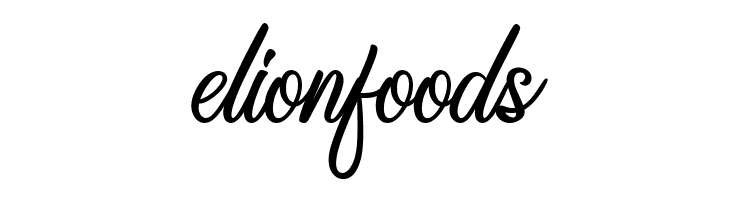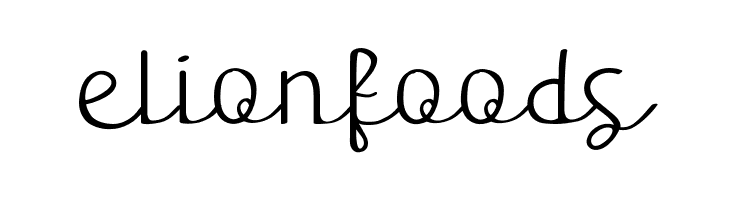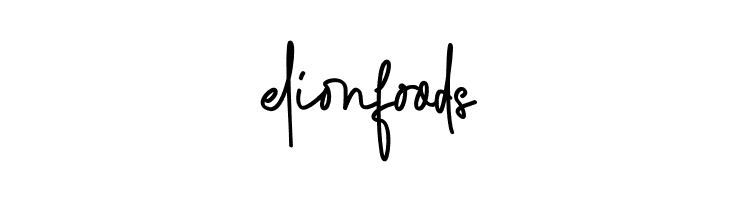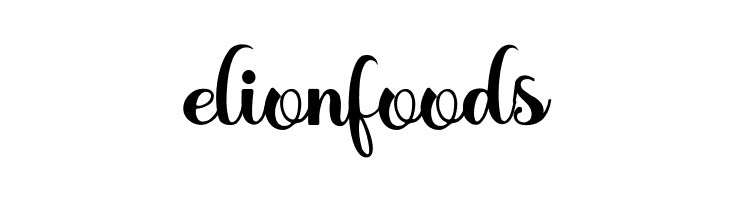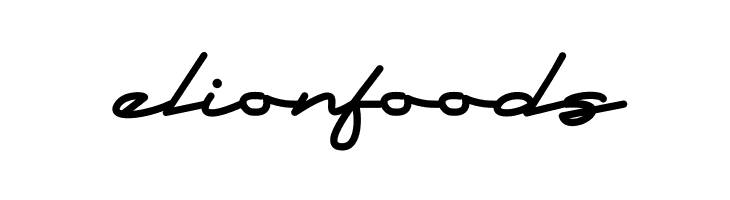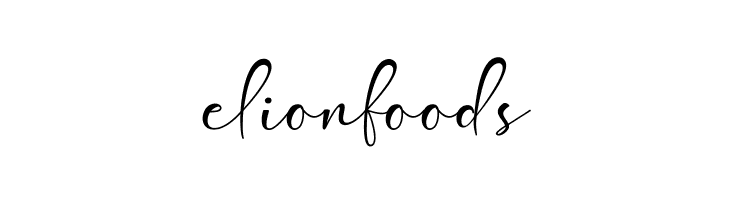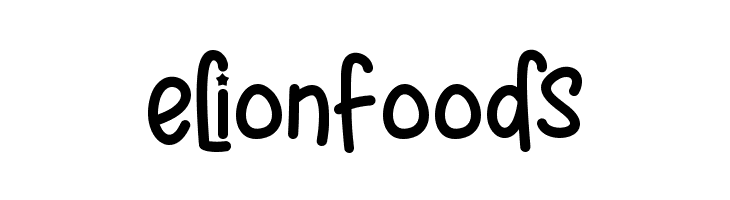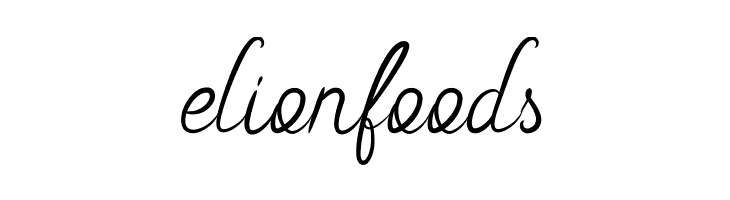
A playful and elegant script font with a handwritten style.
A flowing, cursive script font with elegant, interconnected strokes.
A playful and elegant script font with fluid, cursive strokes.
A playful, handwritten font with dynamic strokes and a casual style.
A charming and elegant script font with flowing, cursive letterforms.
An elegant and playful script font with bold, expressive characters.
A fluid, cursive handwritten font with elegant, connected letters.
A dynamic and elegant script font with a flowing, handwritten style.
A playful, handwritten font with a casual and friendly style.
A graceful script font with flowing, cursive strokes and decorative flourishes.